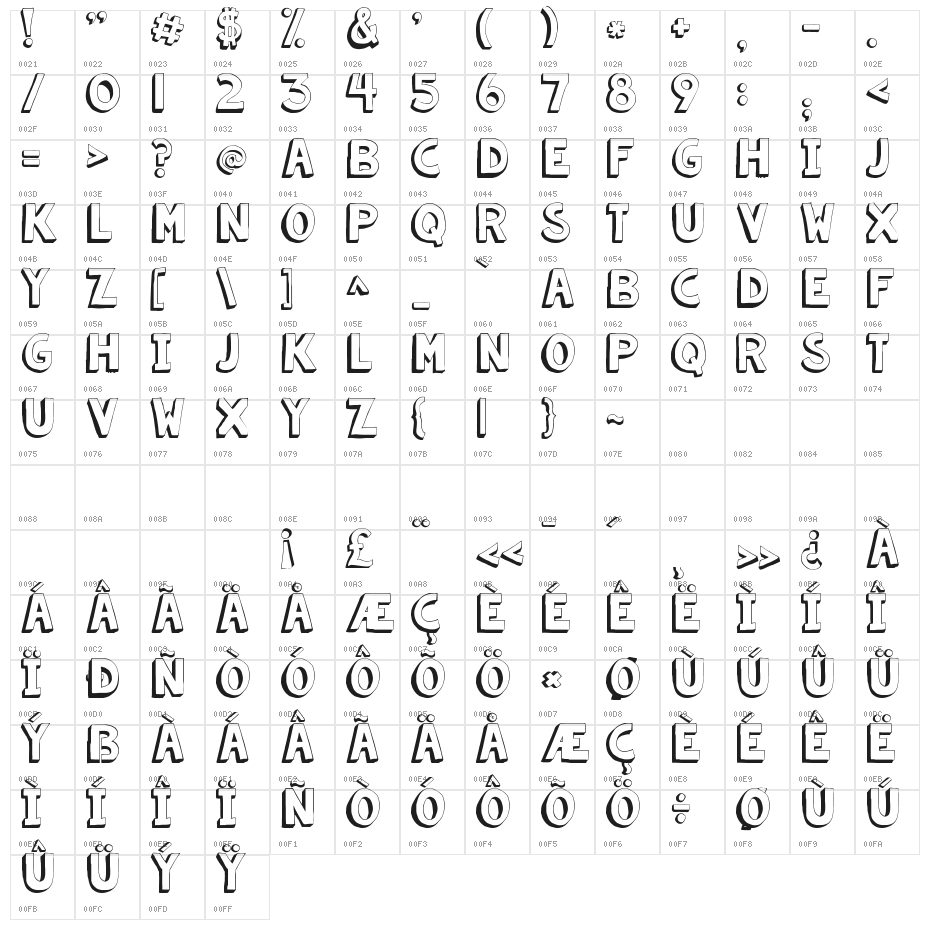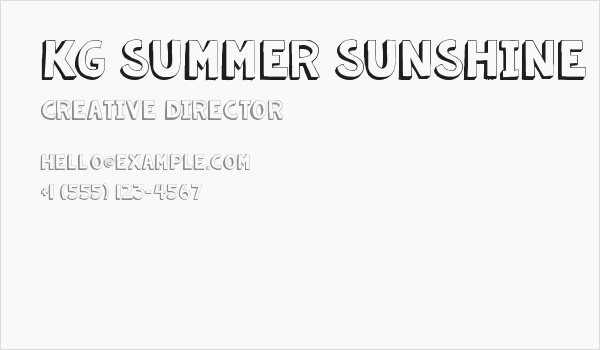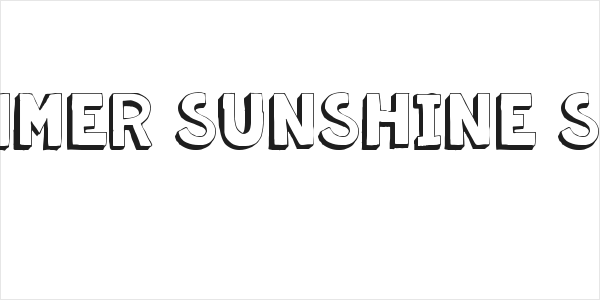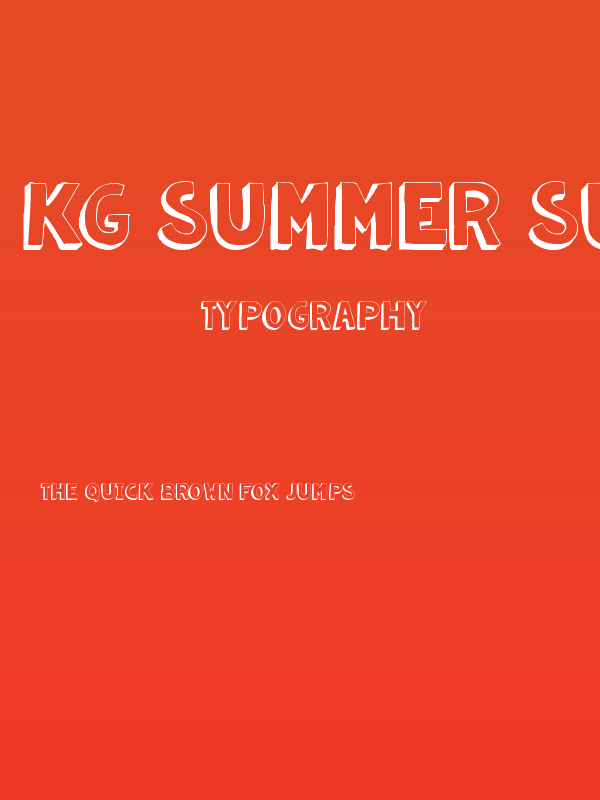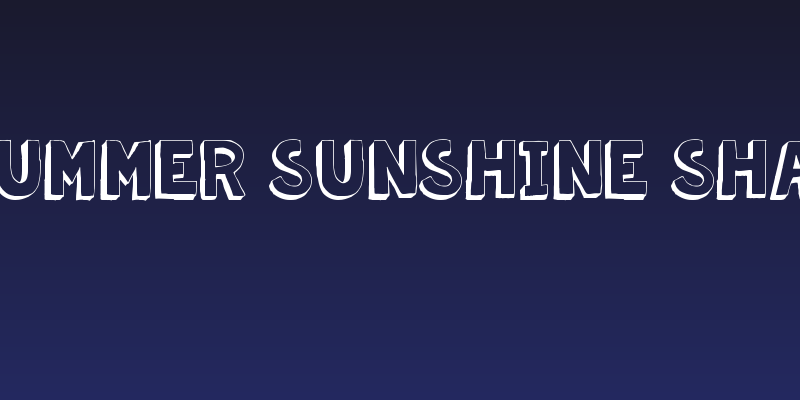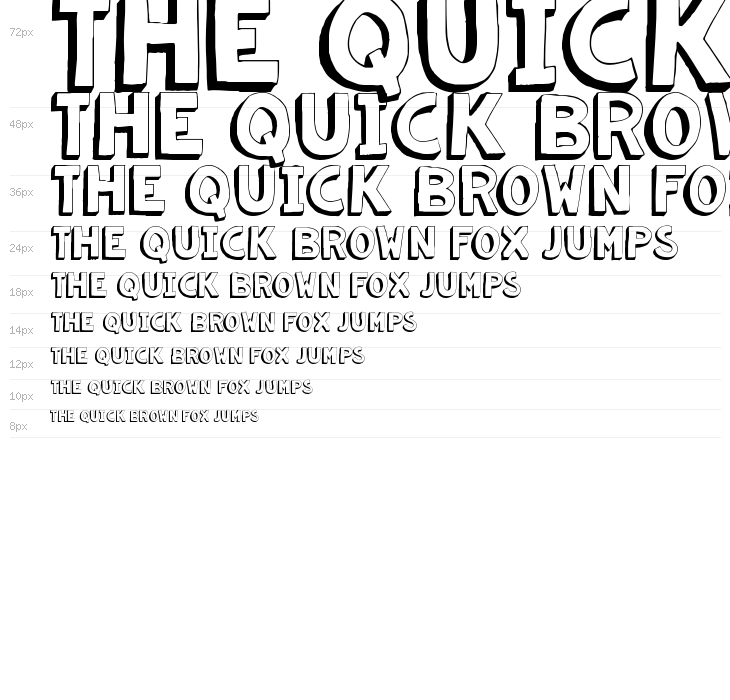
KG Summer Sunshine Shadow Font
KG Summer Sunshine Shadow Description
This playful and bold font features a 3D shadow effect that gives it a lively and dynamic appearance. The characters are uppercase and have a slightly rounded, cartoonish style, making them stand out with a fun and energetic vibe. The shadow adds depth, creating a sense of movement and excitement. The font is perfect for projects that require a cheerful and engaging look, such as children's books, posters, or party invitations. Its boldness ensures readability, while the shadow effect adds a unique twist to the overall design.
| Overall Style | Playful, Energetic |
| Proposed Projects | Ideal for children's books, party invitations, posters, and playful branding. |